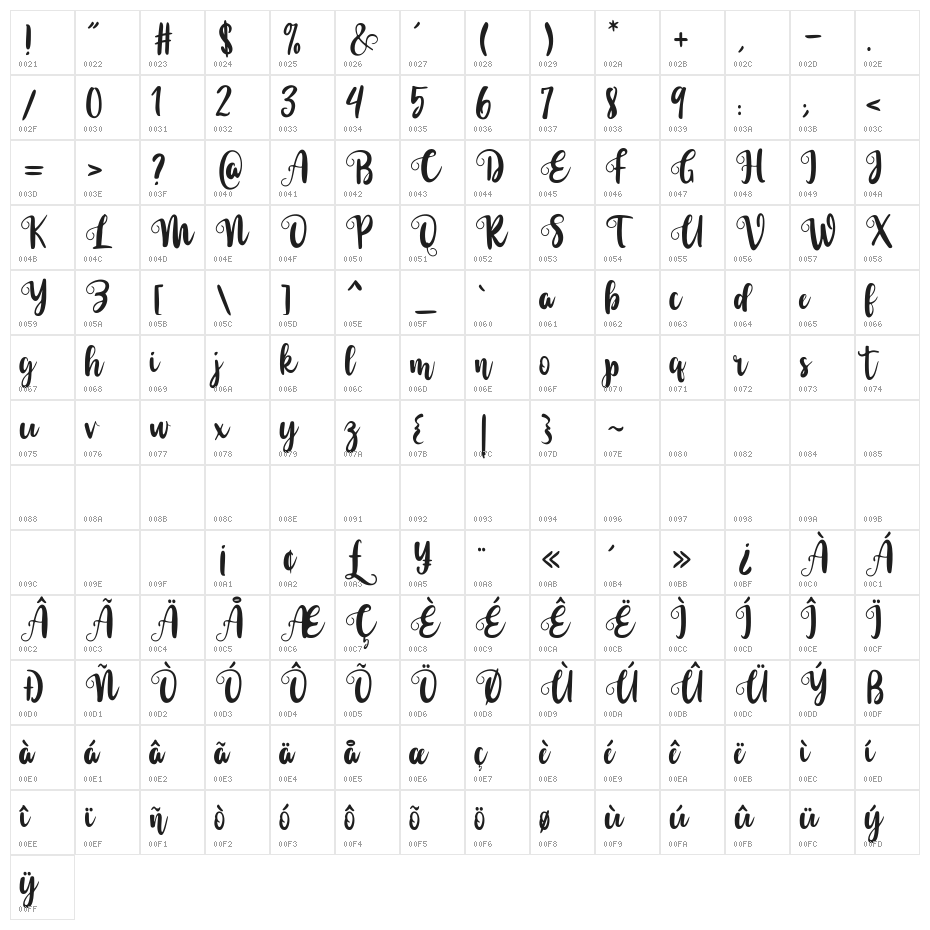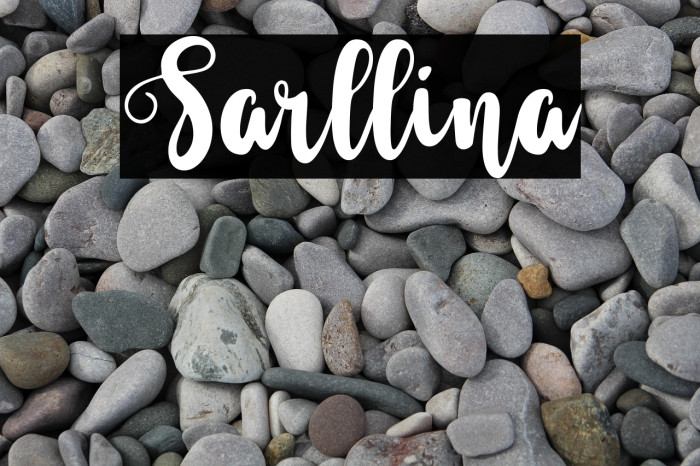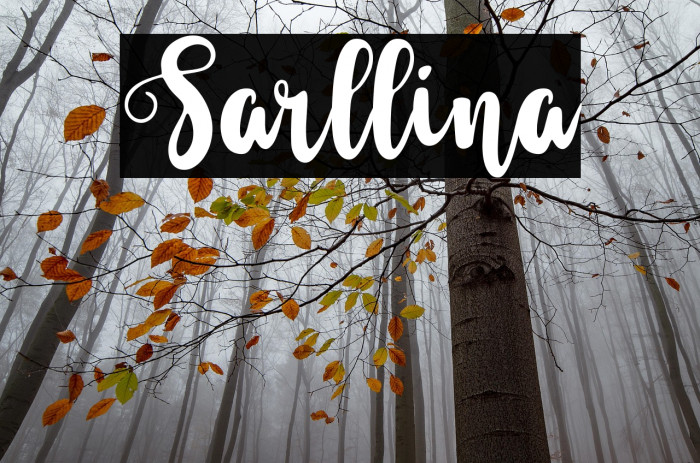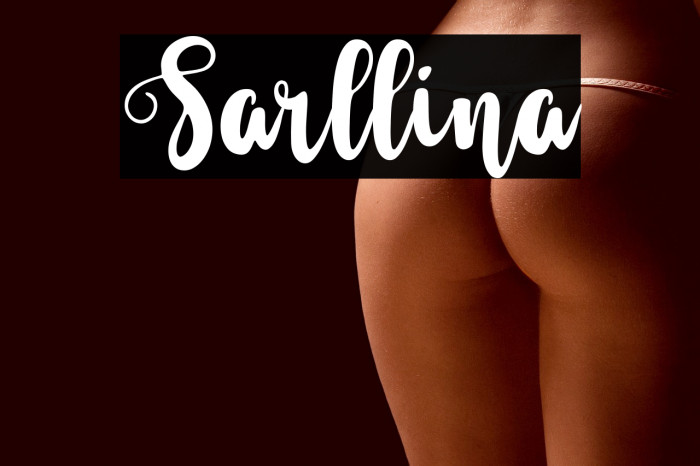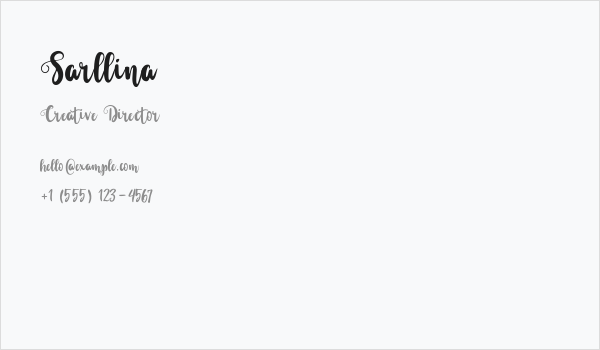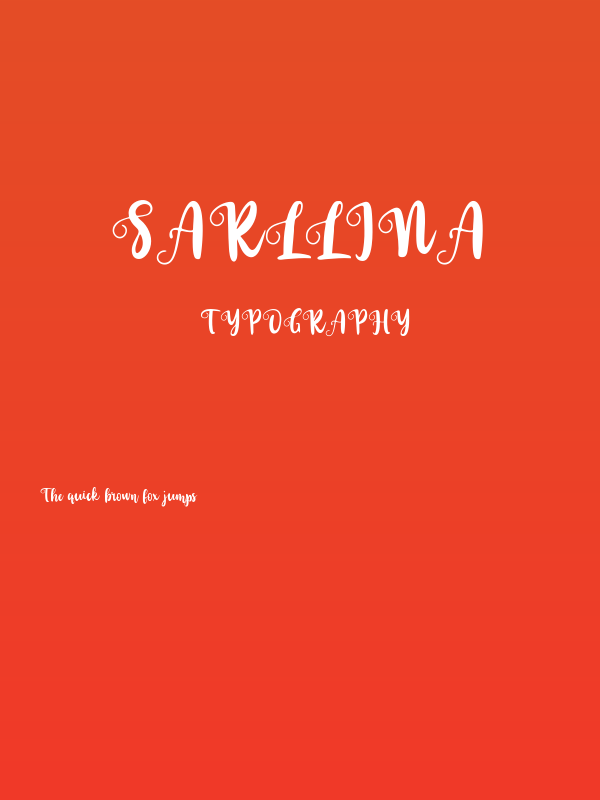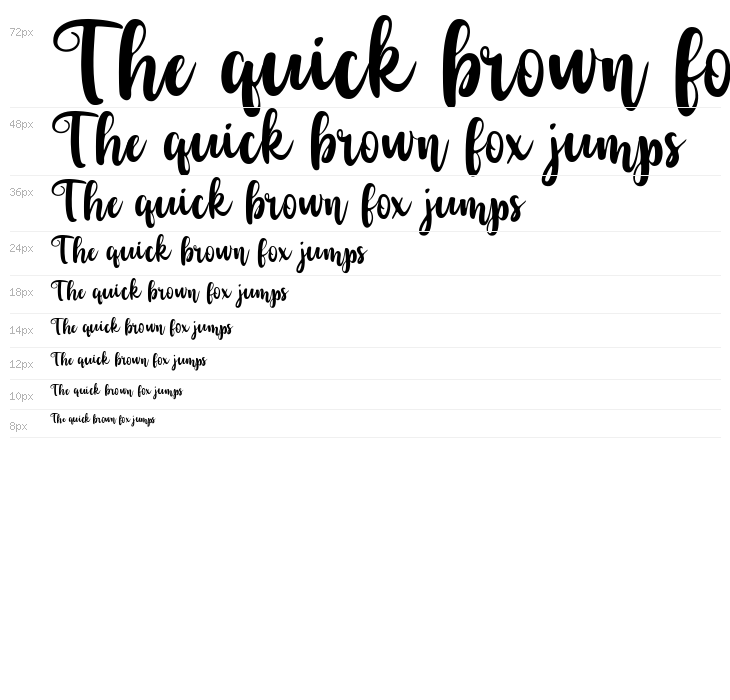
Sarllina Font
Sarllina Description
This font features a playful and elegant script style with a modern twist. The uppercase letters are adorned with subtle flourishes, giving them a whimsical and decorative appearance. The lowercase letters maintain a smooth, flowing script that is both bold and expressive. Numbers and special characters are consistent with the overall style, offering a cohesive look. The strokes are thick, providing a strong presence, while the loops and curves add a touch of sophistication. Ideal for projects that require a personal and artistic touch, this font is versatile and eye-catching.